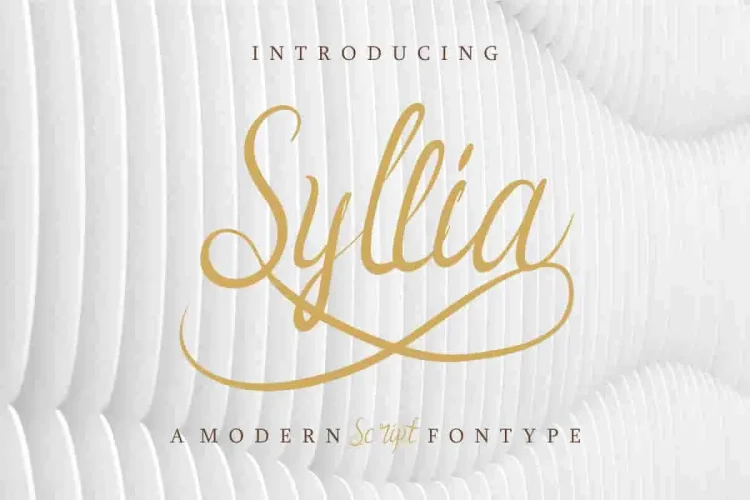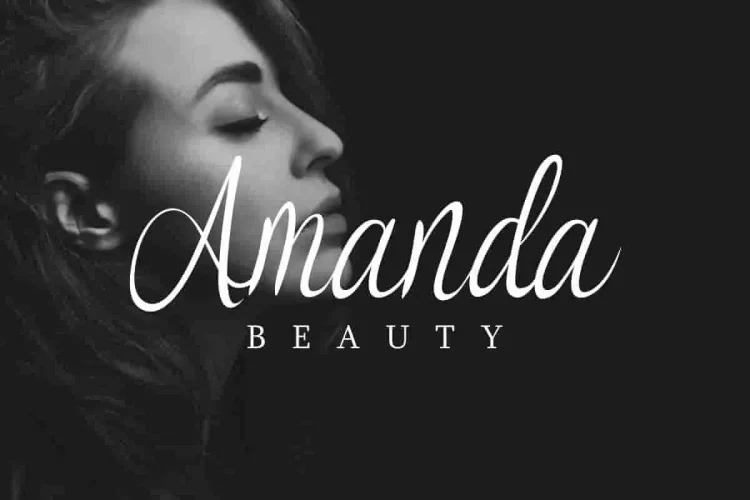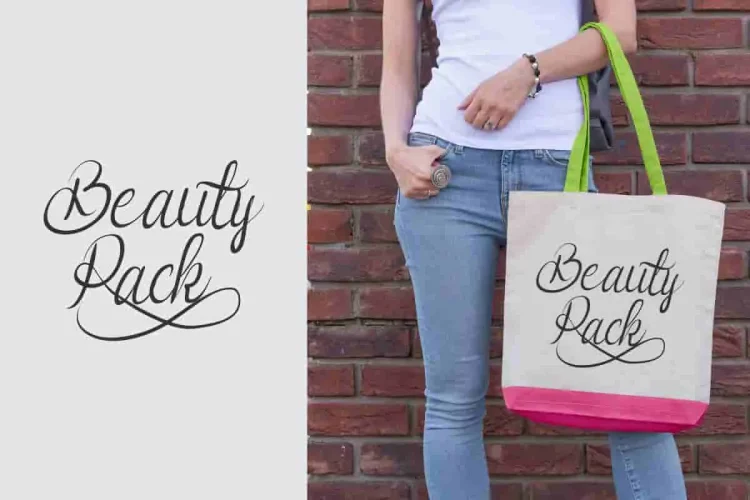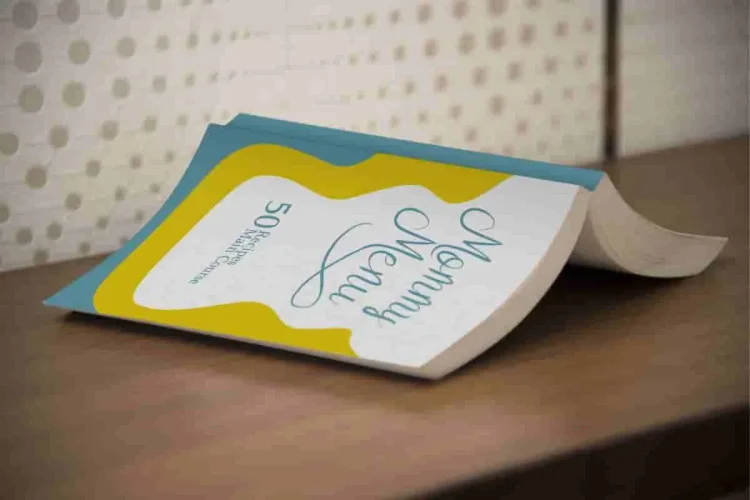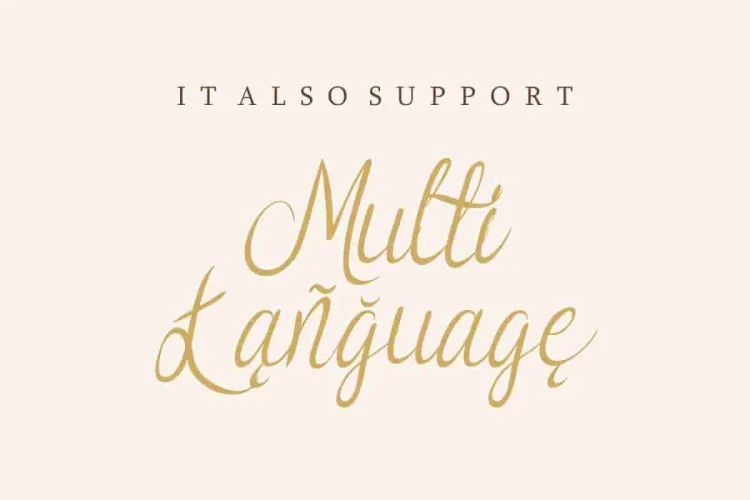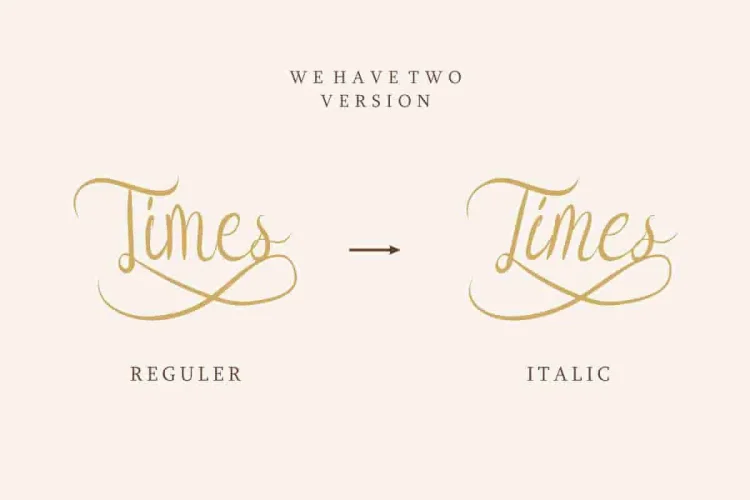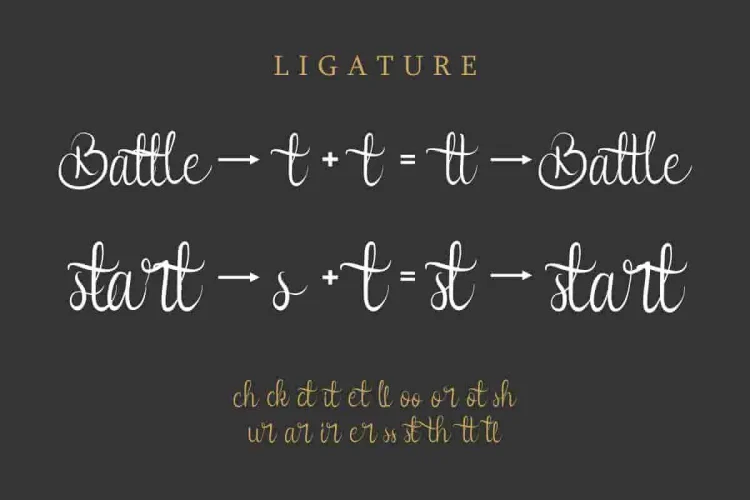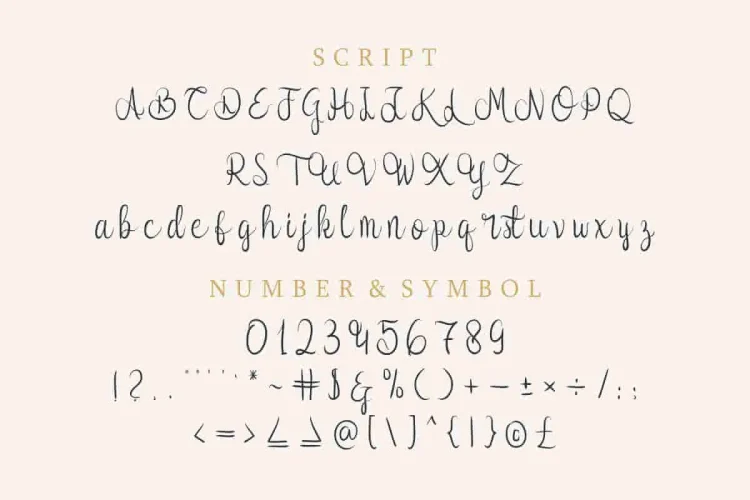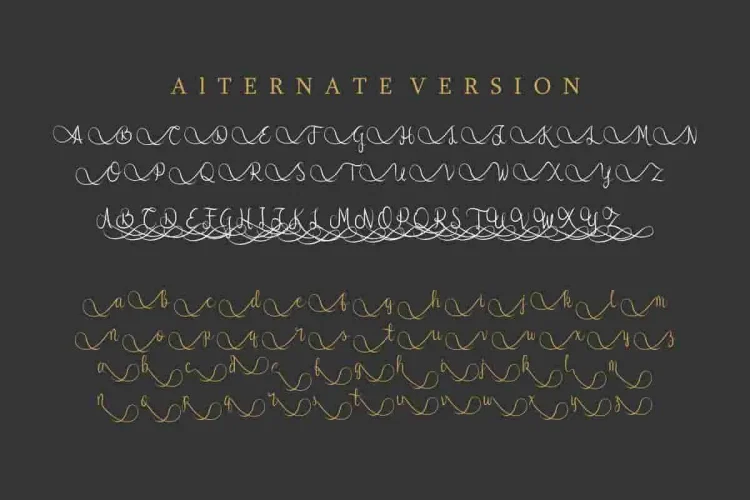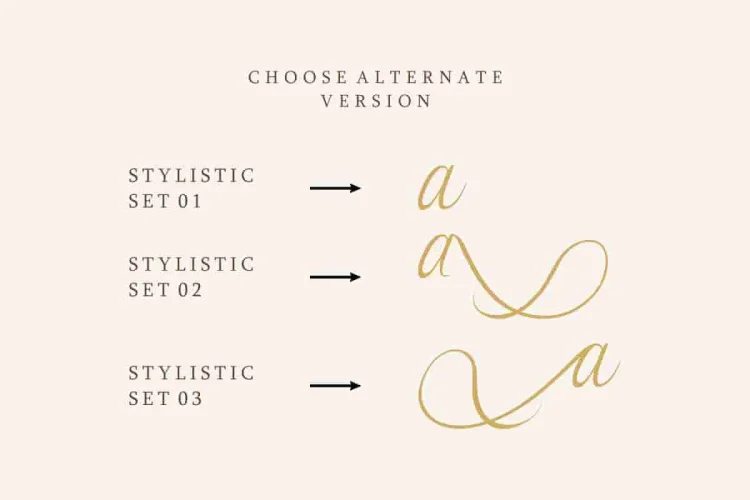
Syllia Calligraphy Script Font
Syllia Calligraphy Font
Please meet our newest font family : Syllia! To begin with, Syllia is a script font that comes with two styles. It’s natural hand Calligraphy Script Font that brings sophistication and warmth to any design.  Additionally, it supports multilanguage accents. Whether you’re creating a wedding invitation, branding your business, or adding a personal touch to a special message—Syllia has you covered.
Syllia comes in two elegant styles: Regular and Italic.
• For example, the Regular style is smooth and balanced—perfect for headers, social media graphics, and timeless branding.
• Meanwhile, the Italic version adds an extra layer of charm with its refined slant and graceful movement. It’s especially ideal for wedding stationery, poetry quotes, or anything that calls for extra romance.
What makes it stand out is the way each letter flows effortlessly into the next. This creates a truly hand-lettered feel, giving your designs an authentic, natural look.
➕ Includes Beautiful Alternates & Ligatures
In addition, Syllia features three stylistic sets to help you personalize your design:
• Stylistic Set 01 gives a soft handwritten version of each character.
• Set 02 offers extended swashes, great for names or signatures.
• Set 03 takes it a step further with dramatic flourishes—ideal for logos and impactful titles.
Moreover, the font supports ligatures like “tt,” “st,” “ch,” and more—making your text flow seamlessly without needing manual edits. These smart combinations make the font feel truly custom.
Therefore, you can use Syllia for many purposes : wedding, celebration, birthday, kids, personal brand, food and beverage, technology, photography, sales marketing etc